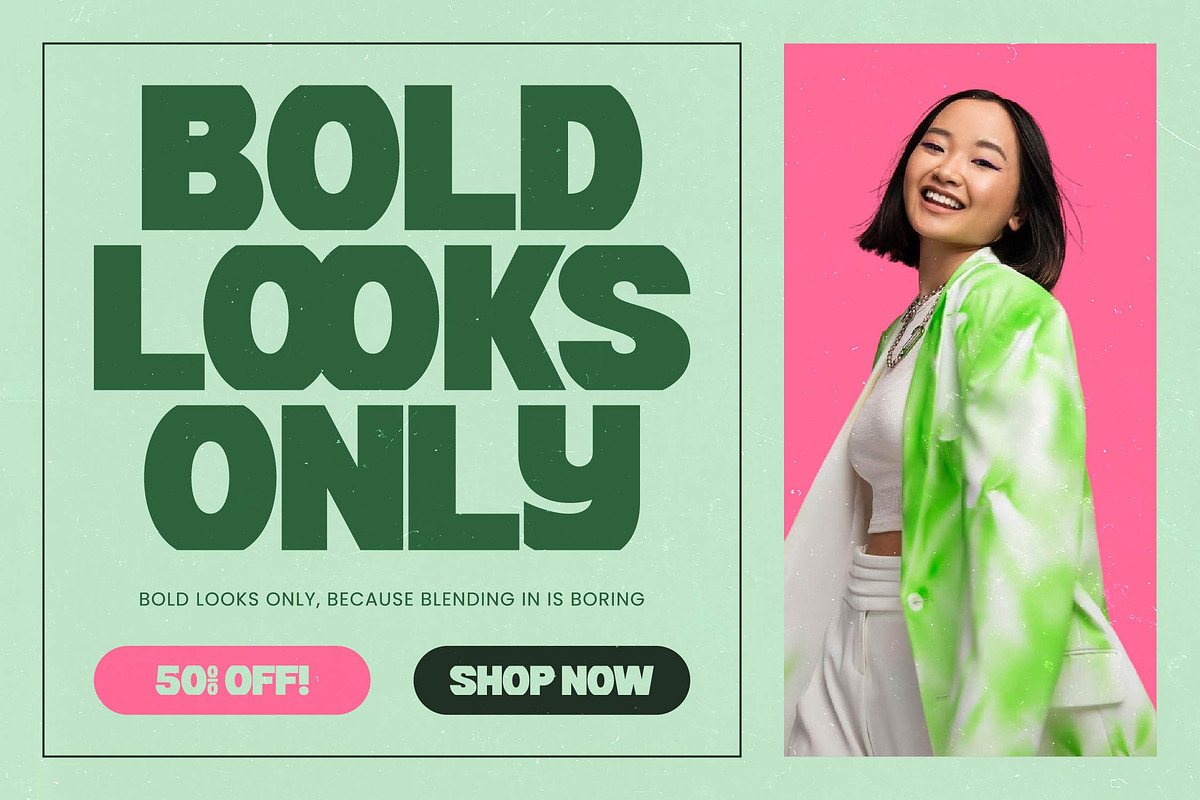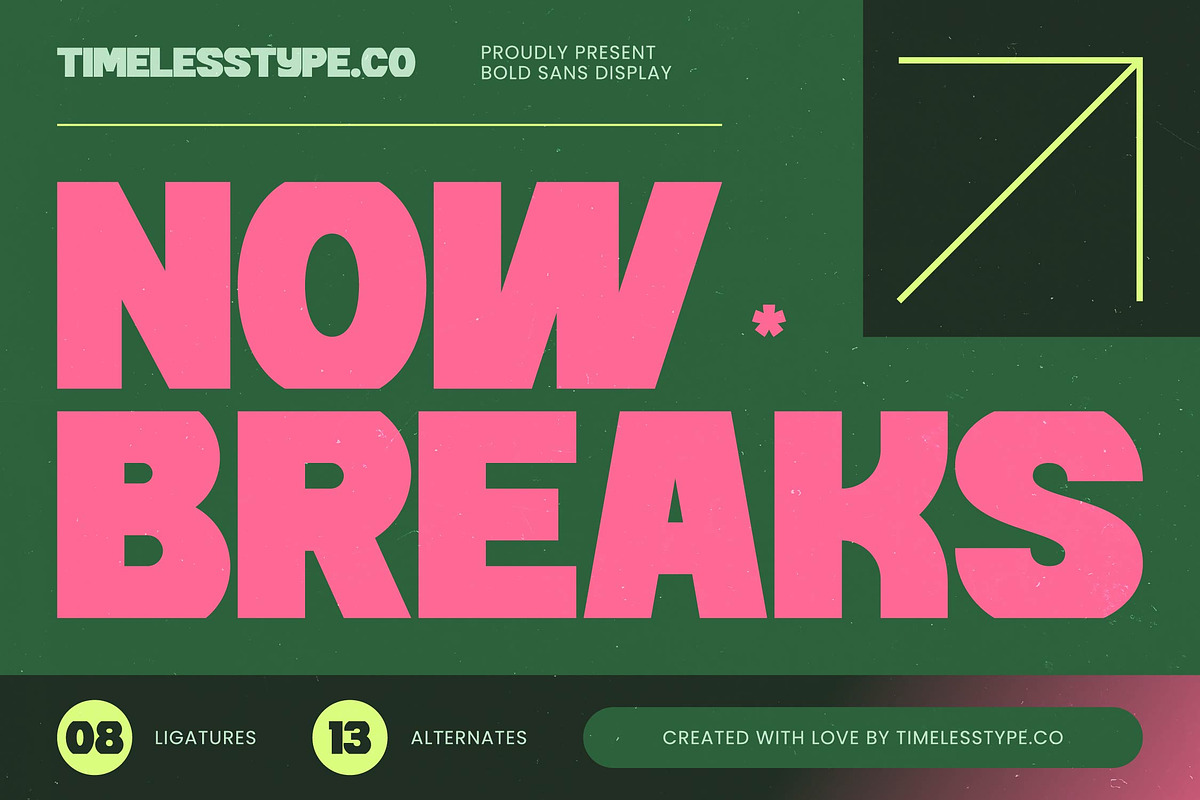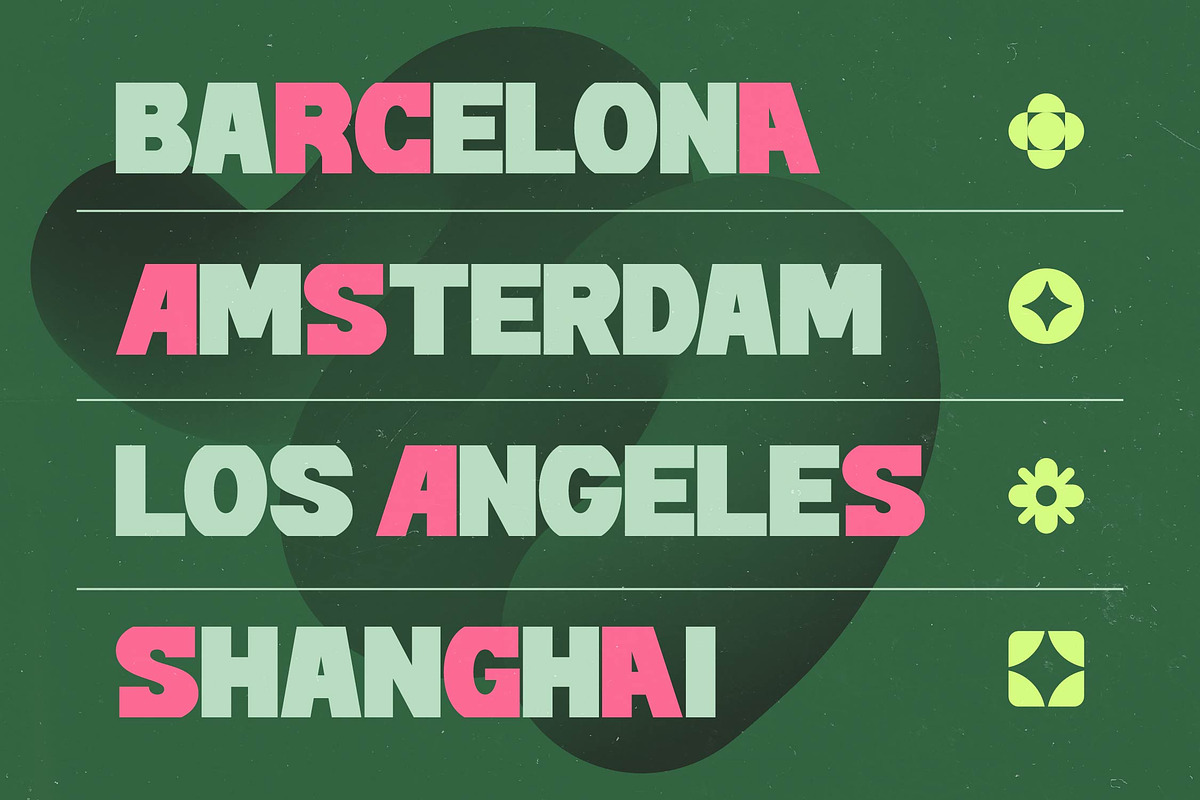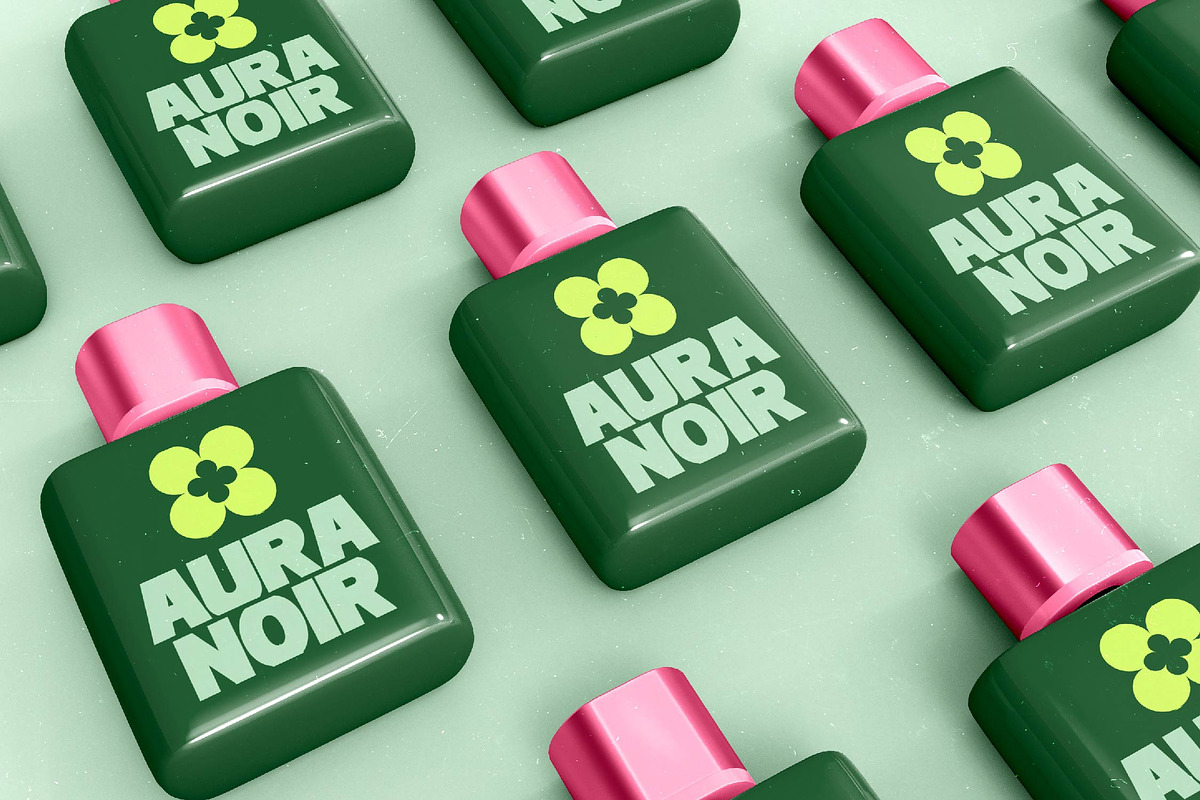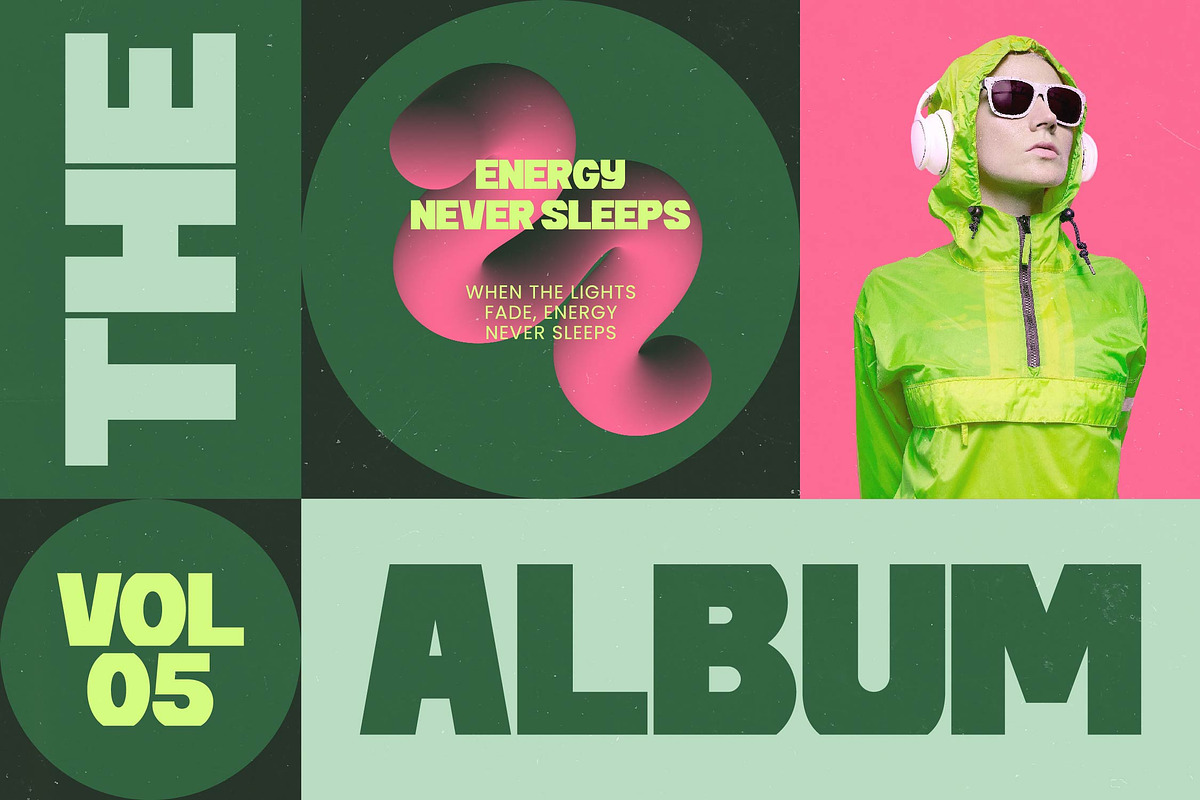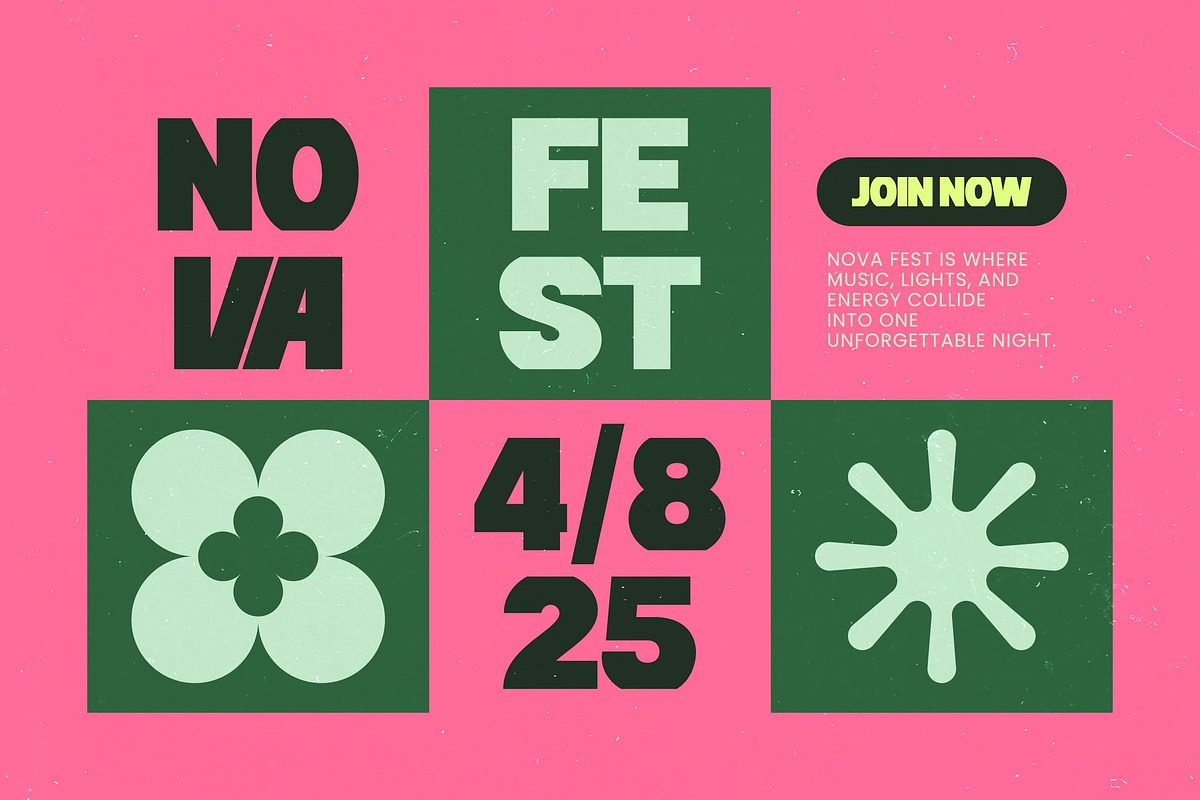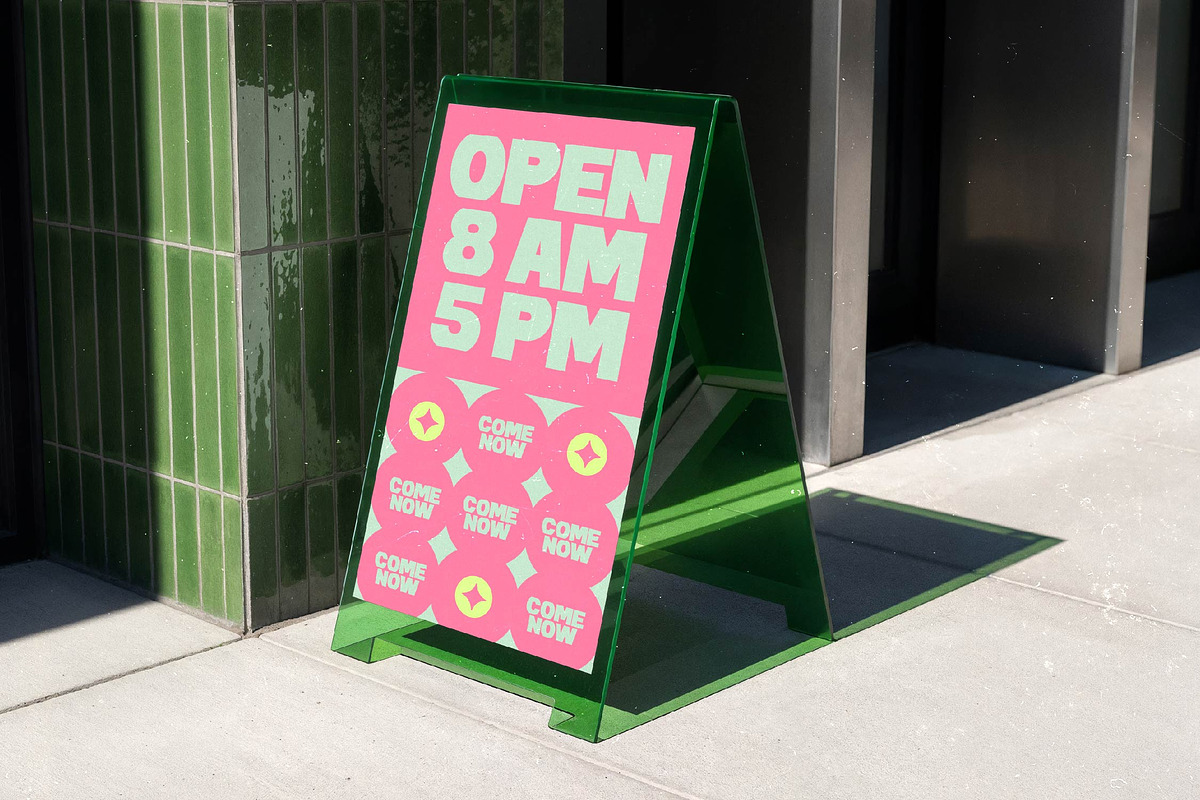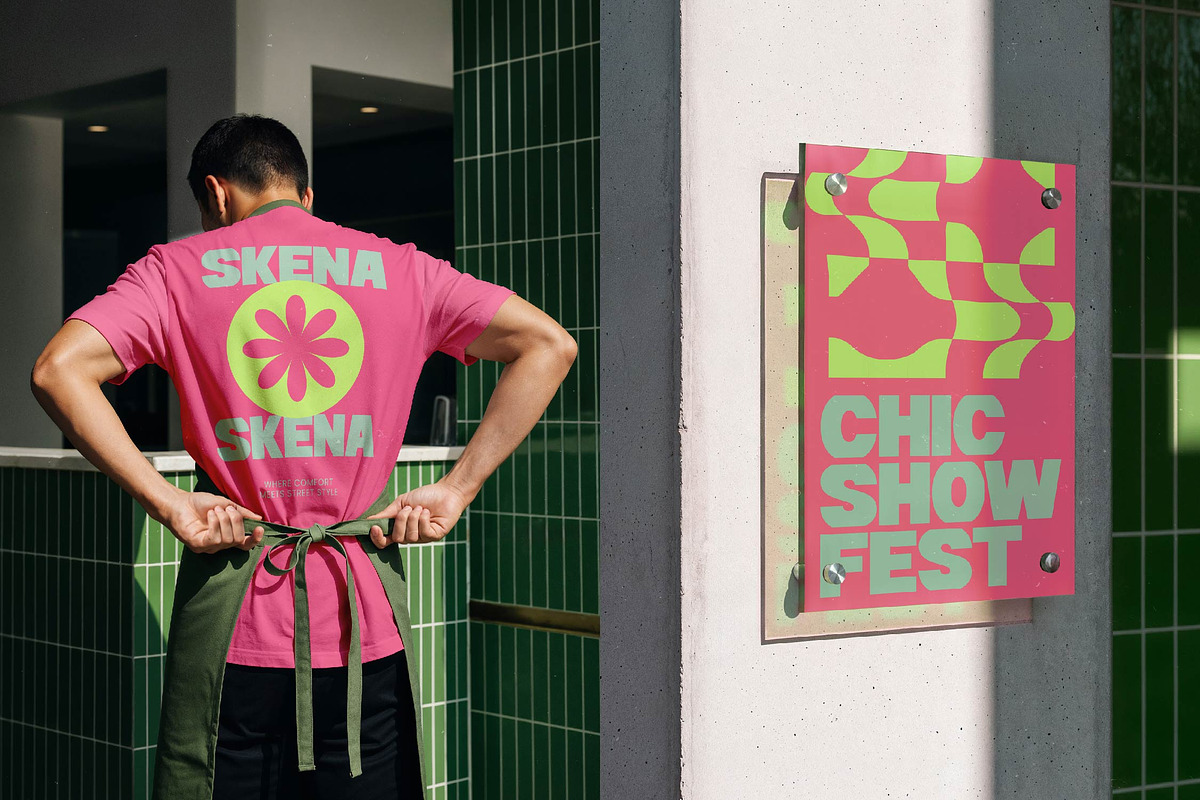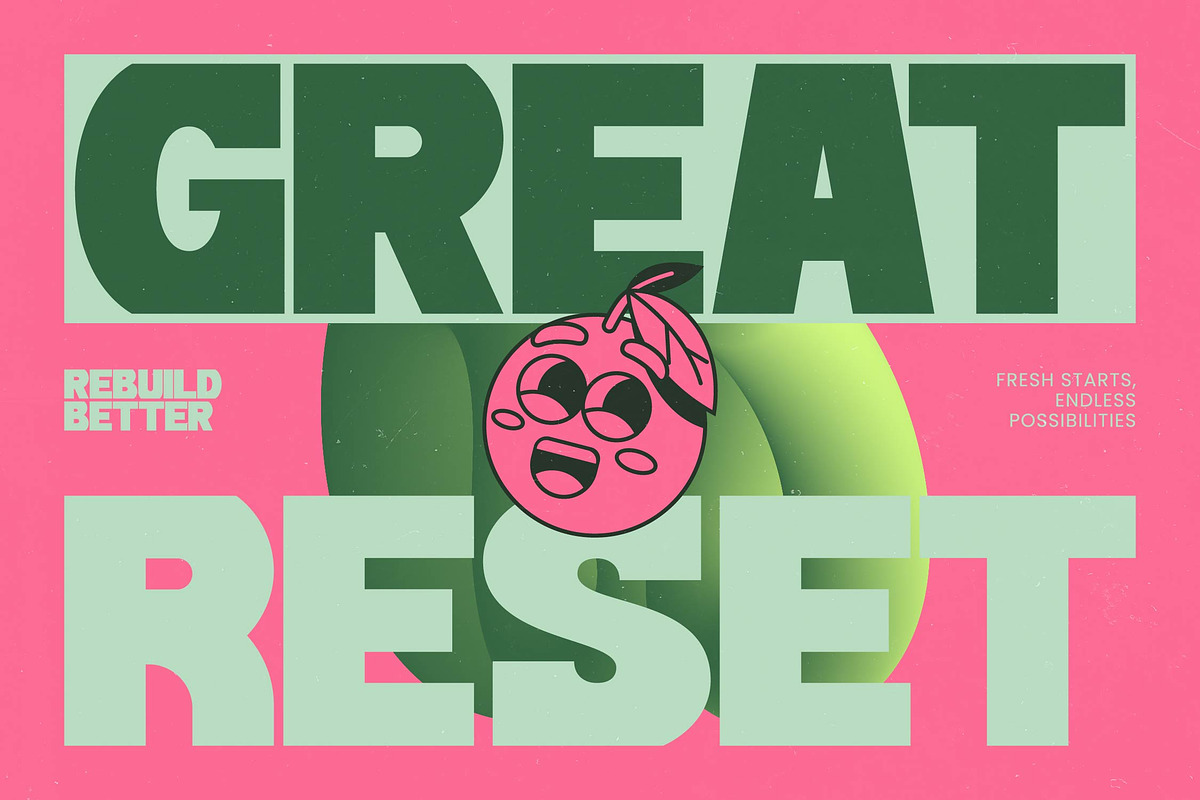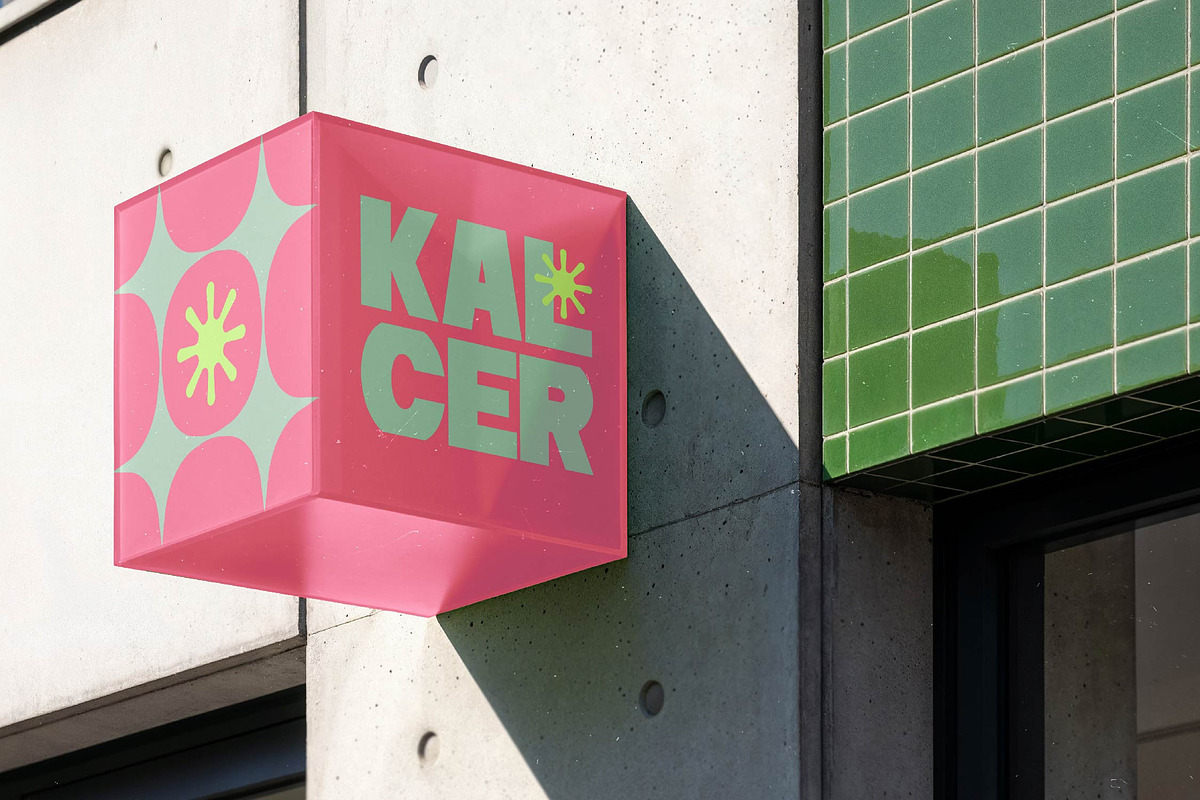
Now Breaks Bold Sans Display
Experience the raw energy of Now Breaks, a font that commands attention through its sheer presence and unapologetic structure. It is more than just a typeface; it is a visual statement designed for those who want to leave a lasting mark on the modern design landscape.
Inspired by the rhythm of urban environments and the sharp edges of contemporary brutalism, this font captures a sense of organized chaos. Its "broken" letterforms mirror the fractured yet cohesive nature of modern digital art and street culture.
With its massive weight and unique negative space cuts, this modern sans display offers unparalleled branding impact. It delivers a luxury typography feel that leans into the avant-garde, making it an essential editorial font for projects requiring a bold, defiant personality.
Tapping into the current modern sans trend, this typeface aligns perfectly with the shift toward character-driven typography. It is a standout choice among editorial display fonts, providing the gravity needed for high-end streetwear labels and experimental digital platforms.
This versatile powerhouse is optimized for logo design and high-visibility branding projects that need to cut through the noise. Whether you are working on edgy editorial layouts, bold packaging, or high-fashion lookbooks, it provides a solid foundation for creative excellence.
Beyond its striking appearance, the font includes ligatures and alternates to provide creative flexibility for custom-looking headlines. It also features a full set of international characters and provides comprehensive multilingual support for global reaching projects.
Numerals
Punctuations (OpenType Standard)
Accents (Multilingual Characters)
Ligatures and Alternative Style Stylistic Set